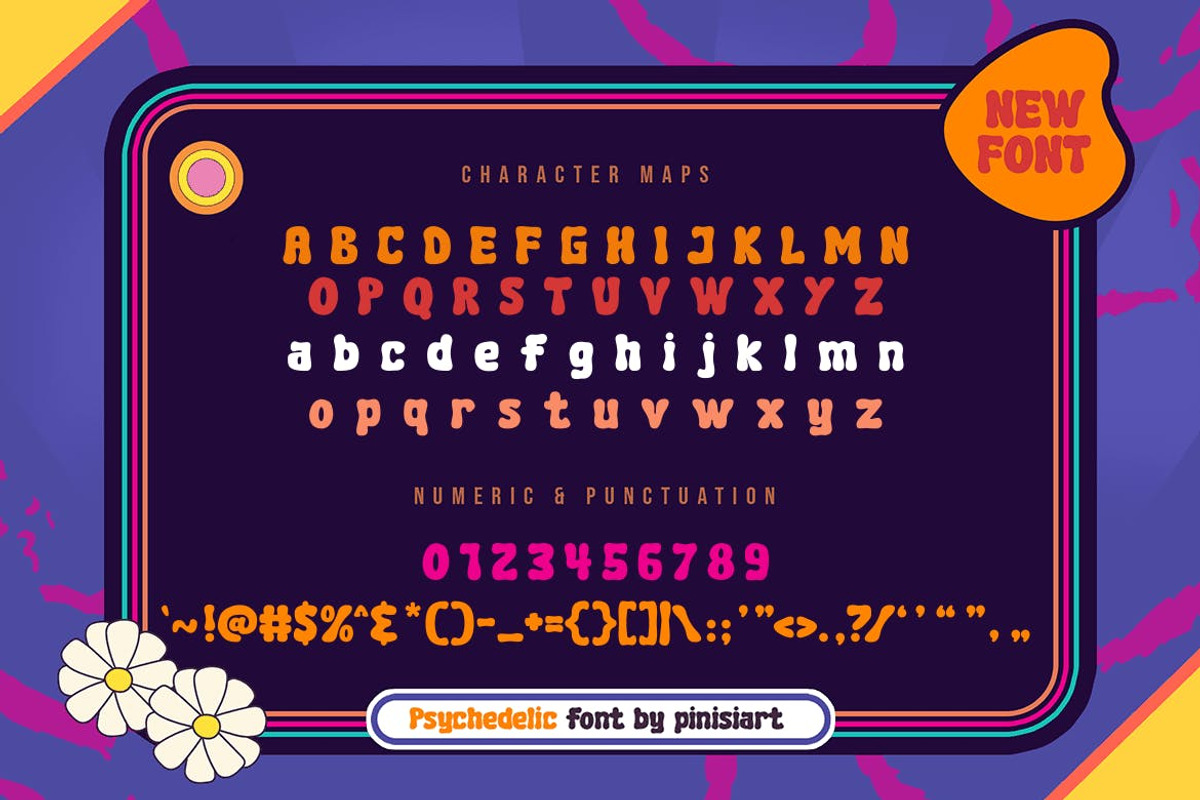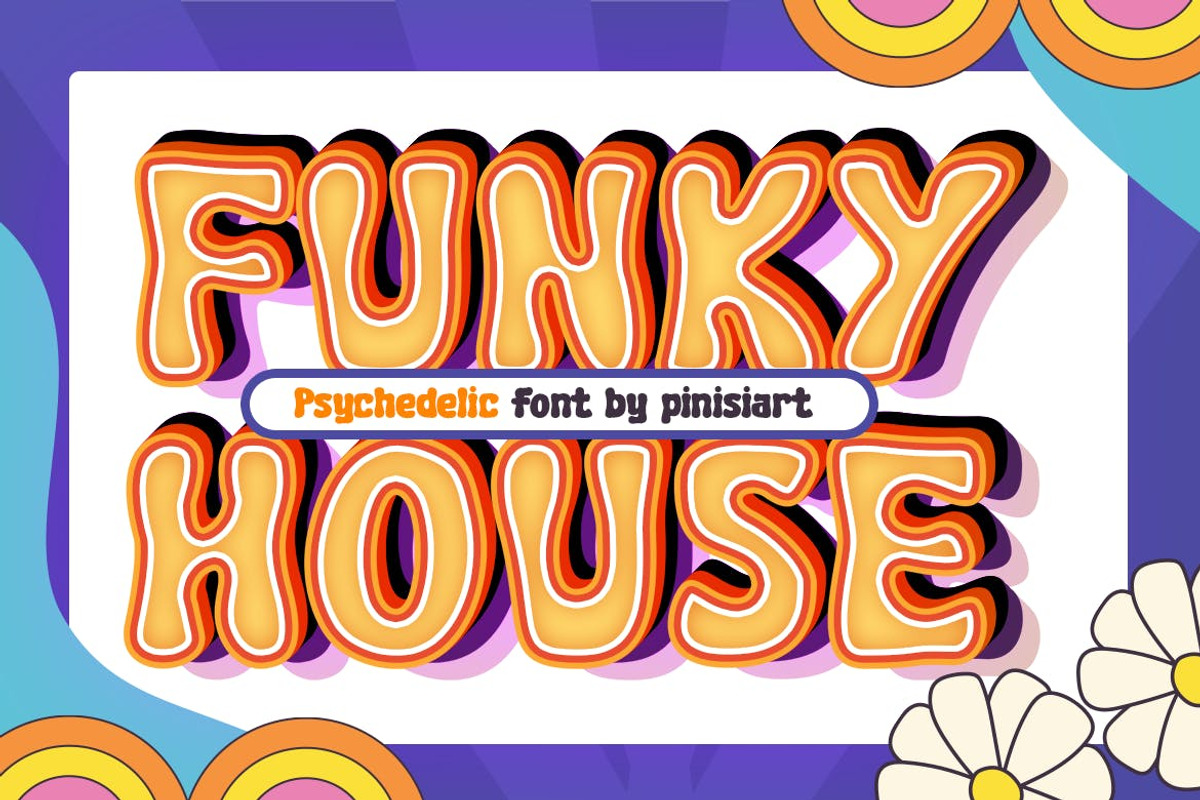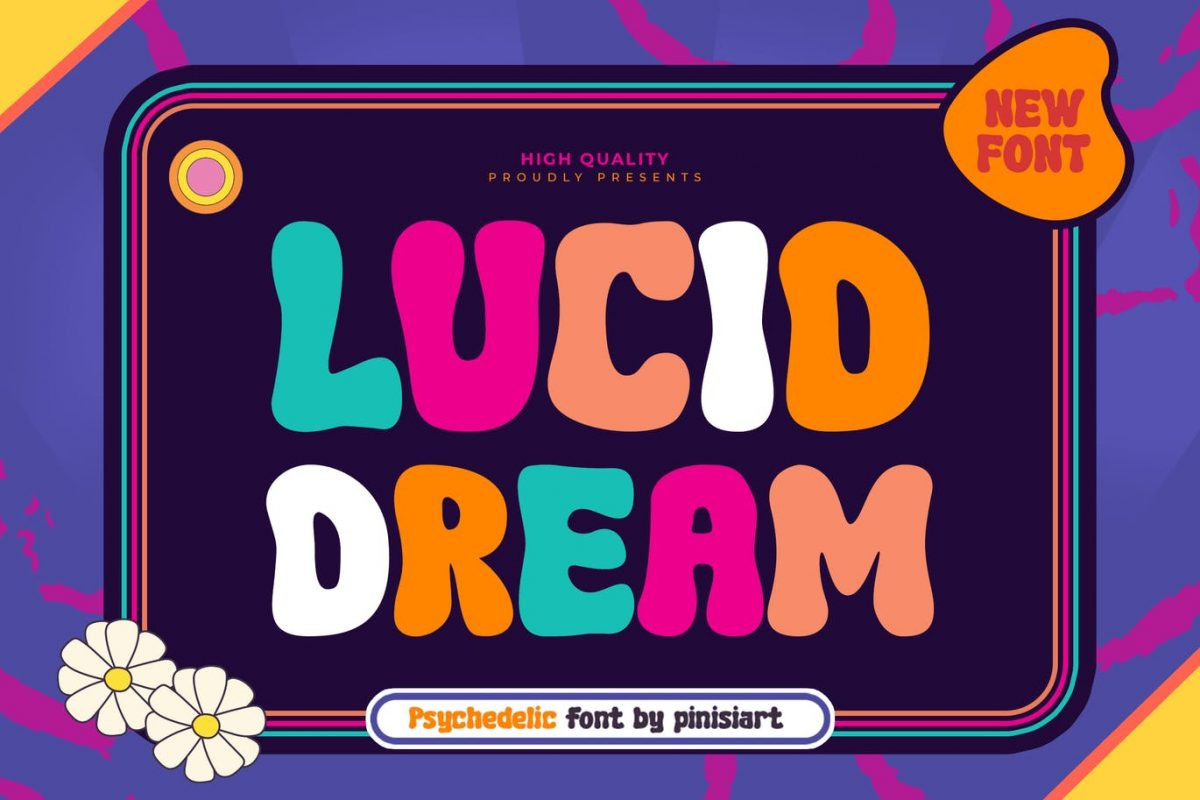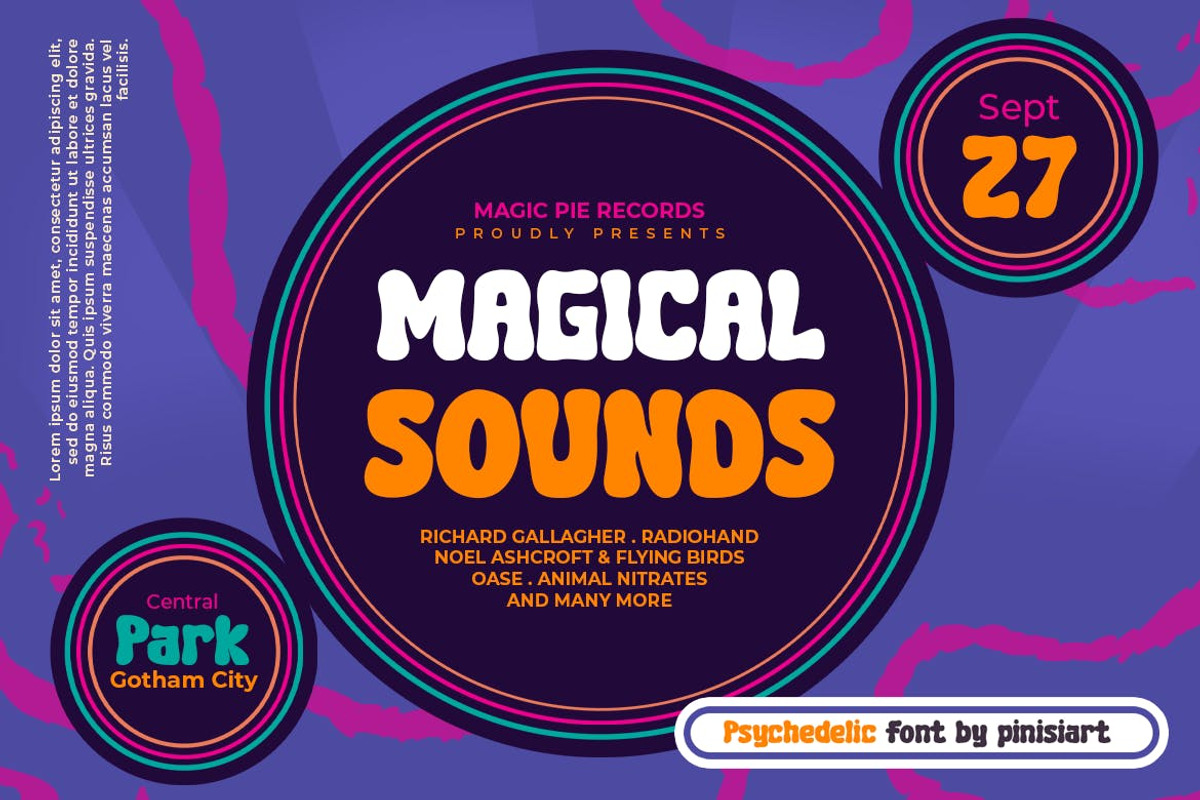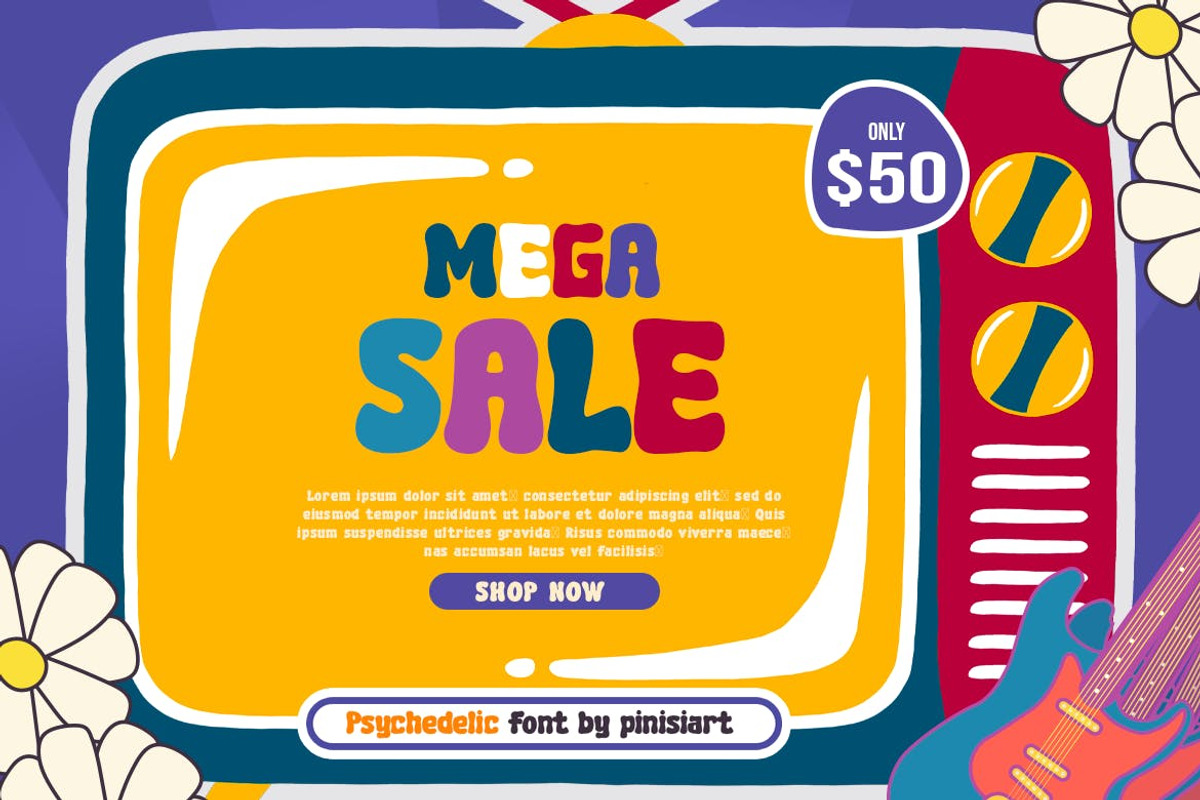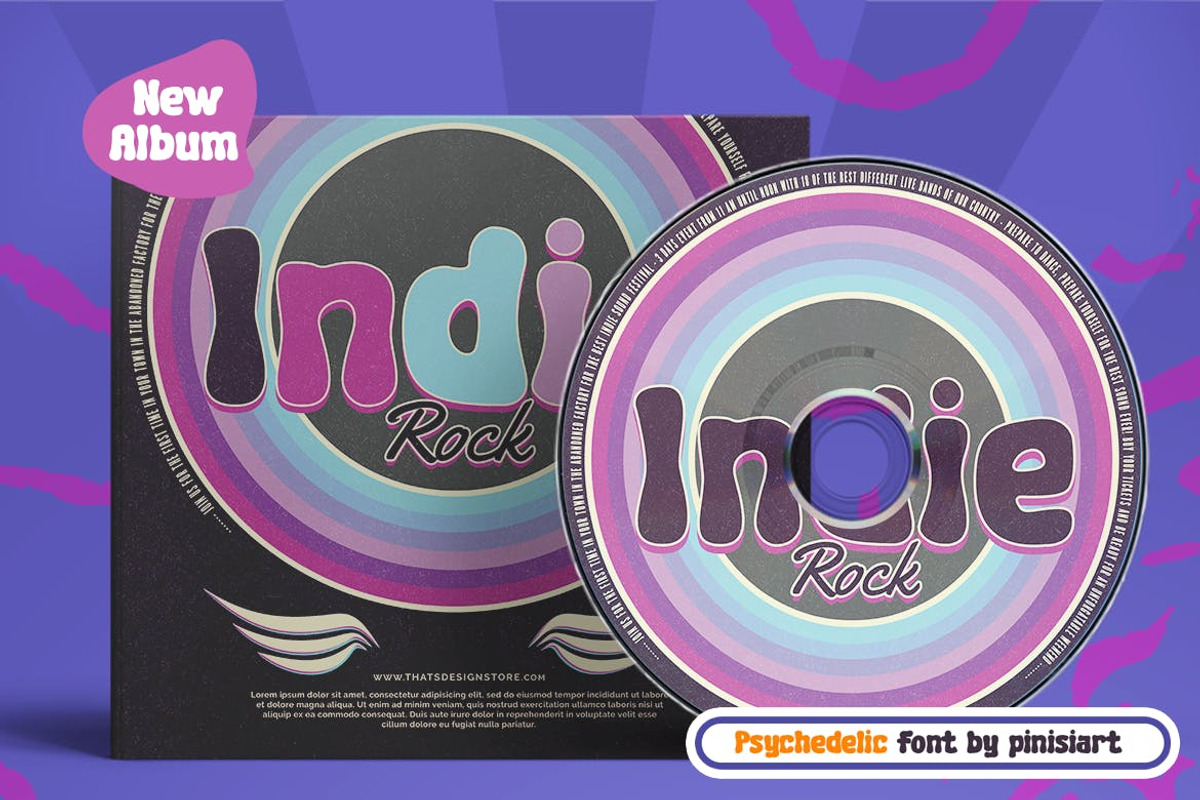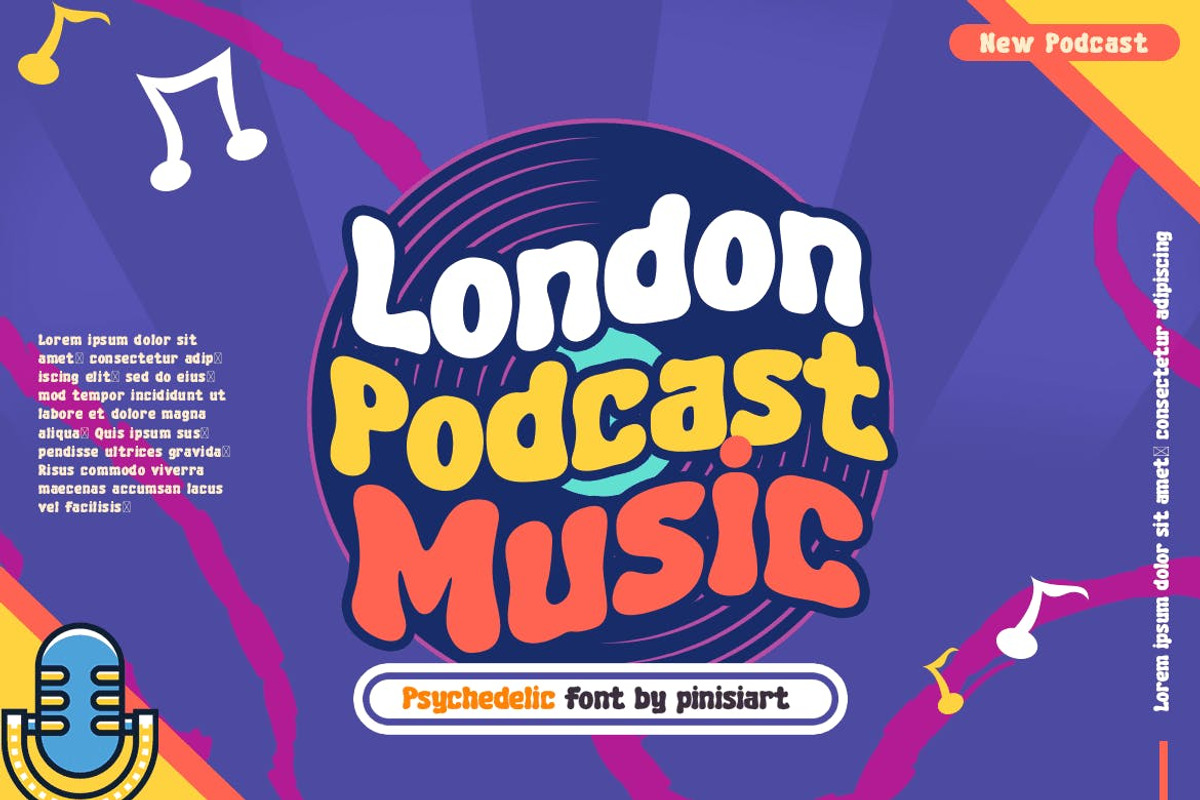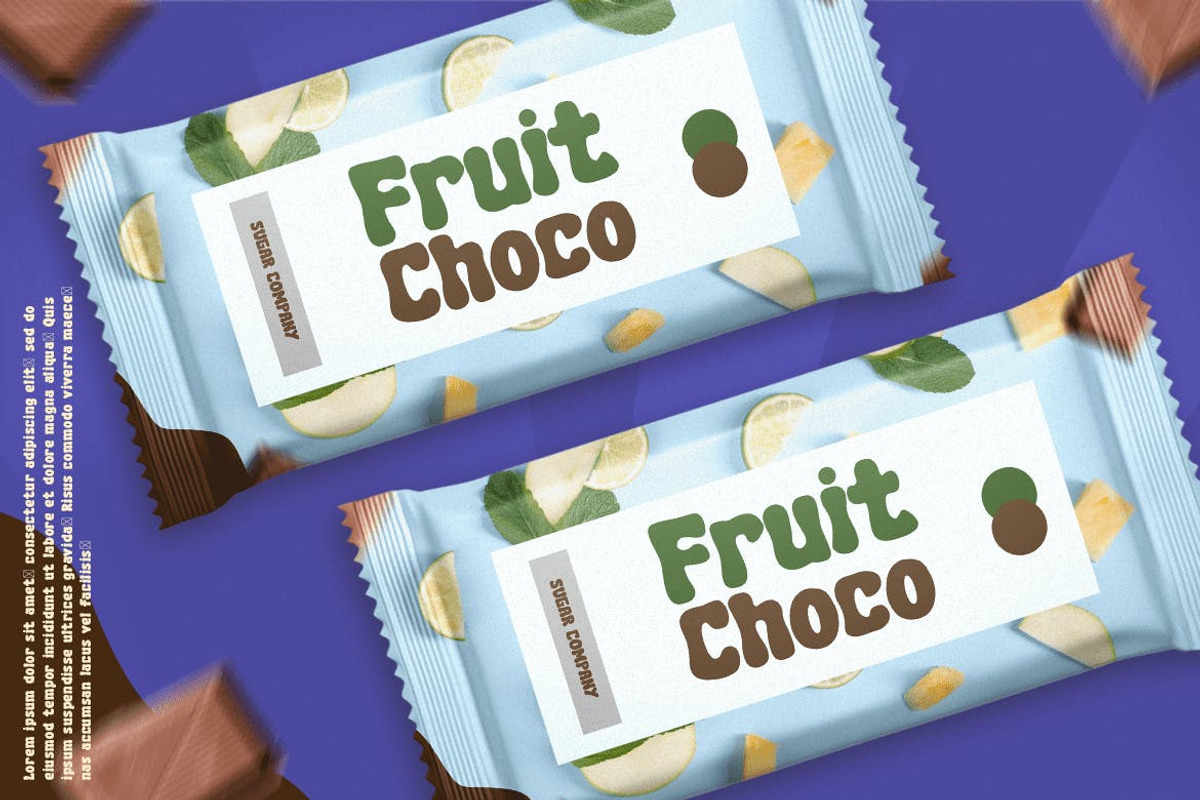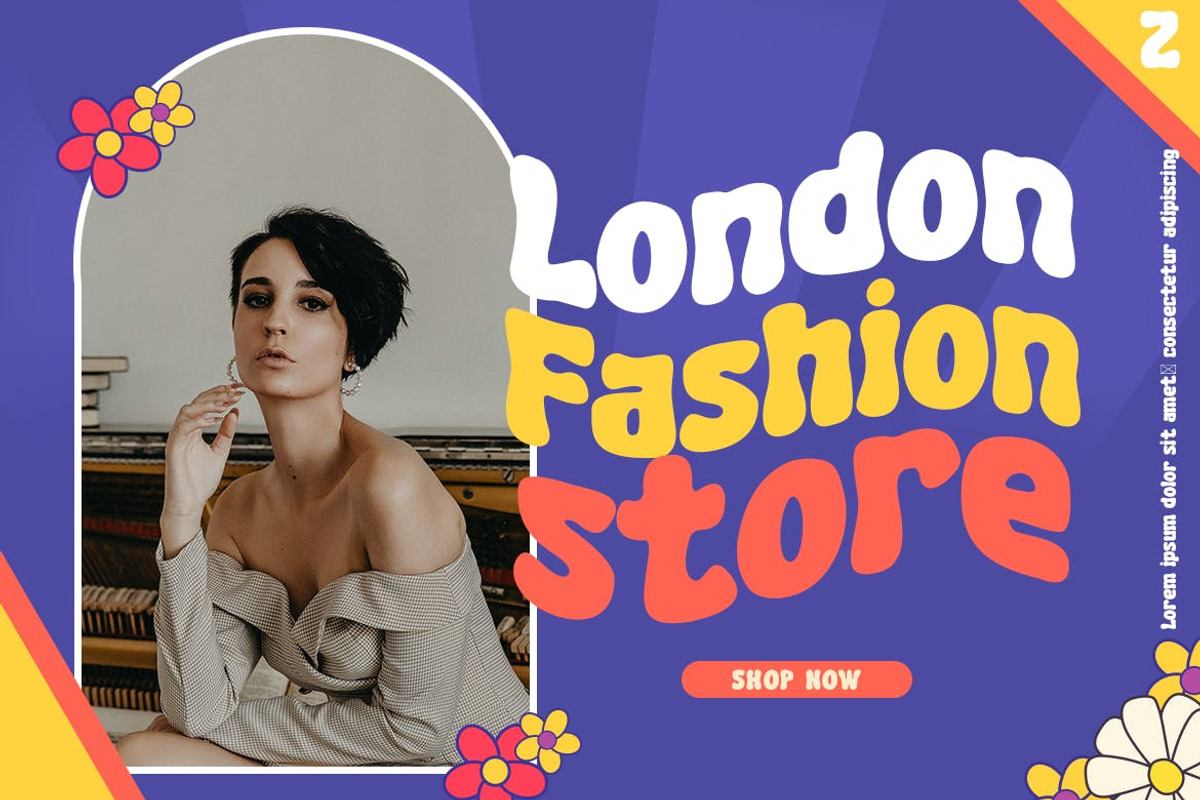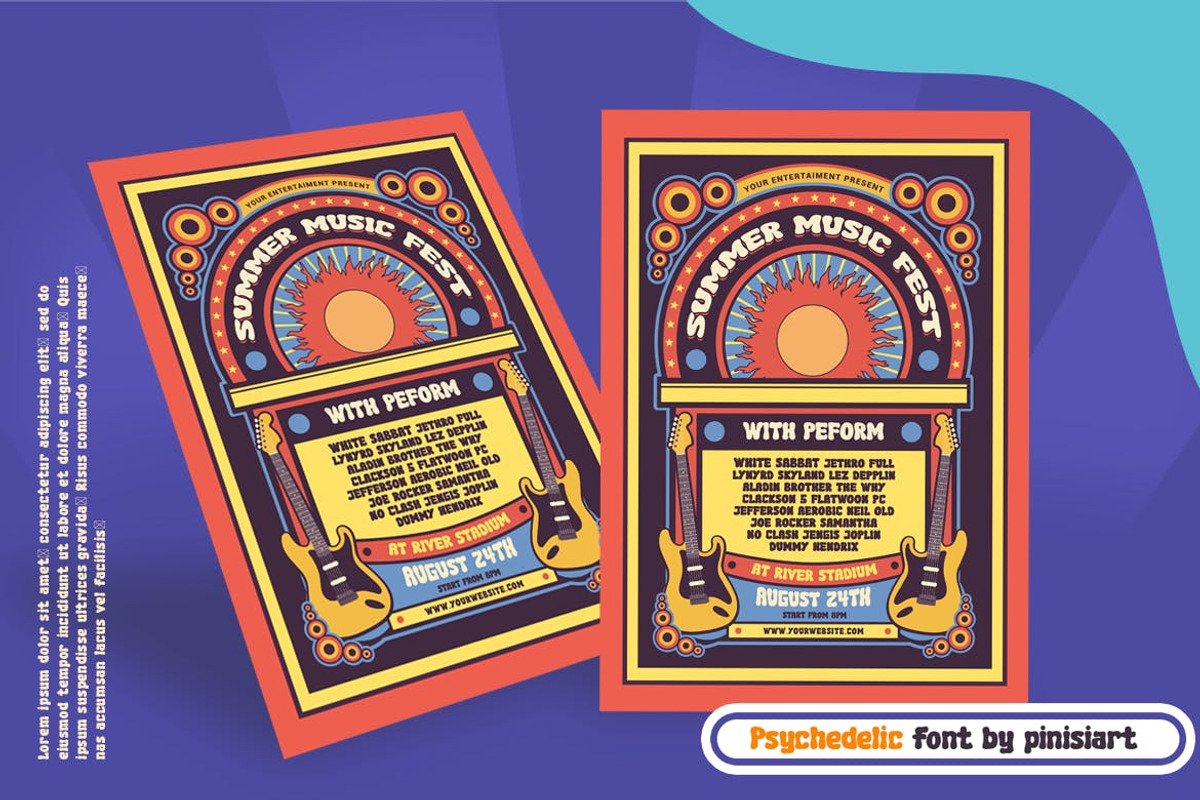
LUCID DREAM – Psychedelic Fun Font
LUCID DREAM – psychedelic fun font
Retro and groovy, while keeping it happy. Lucid Dream will bring memories from the late 70s to the modern era.
Suit perfectly for retro themes books market, music album covers, stationary, groove party invitation, poster, youtube covers, youtube thumbnails, social media page covers, and so on…